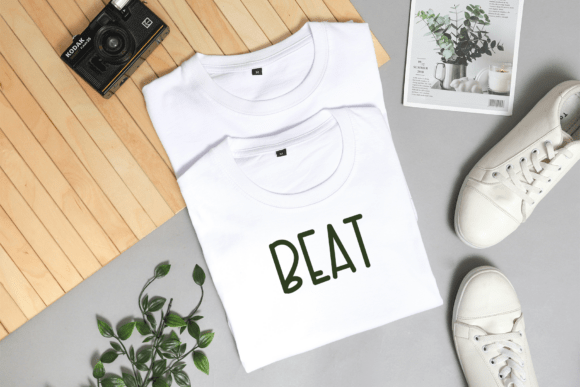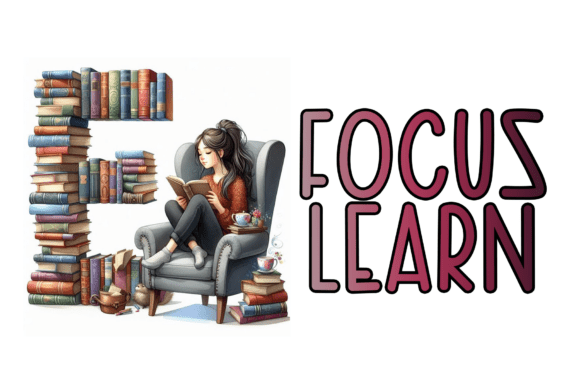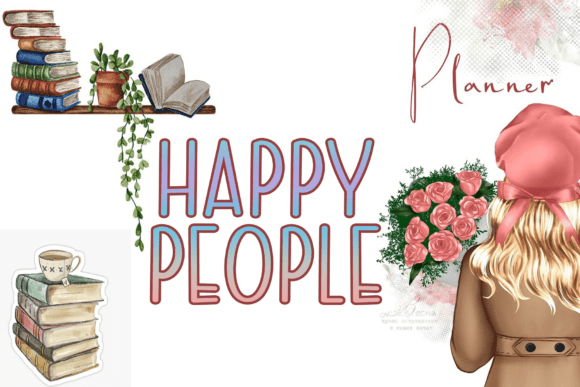
Bookmark Font
Bookmark is a cute and playful handwritten font with soft, simple letters. Its natural, hand-drawn style makes it perfect for adding a personal and friendly touch to your designs.